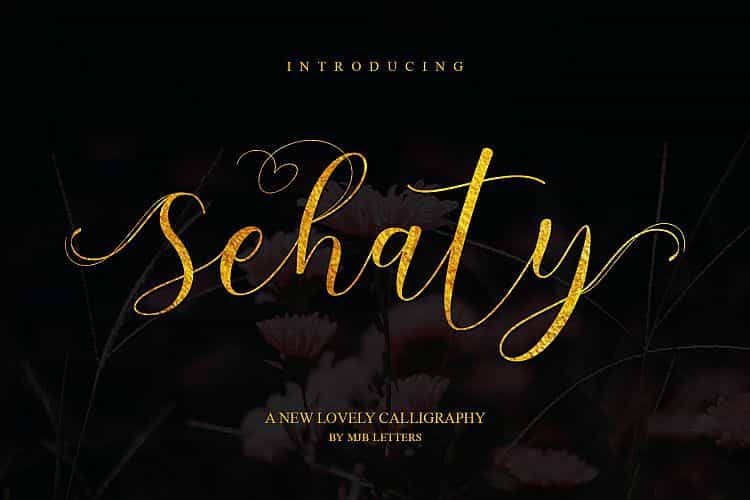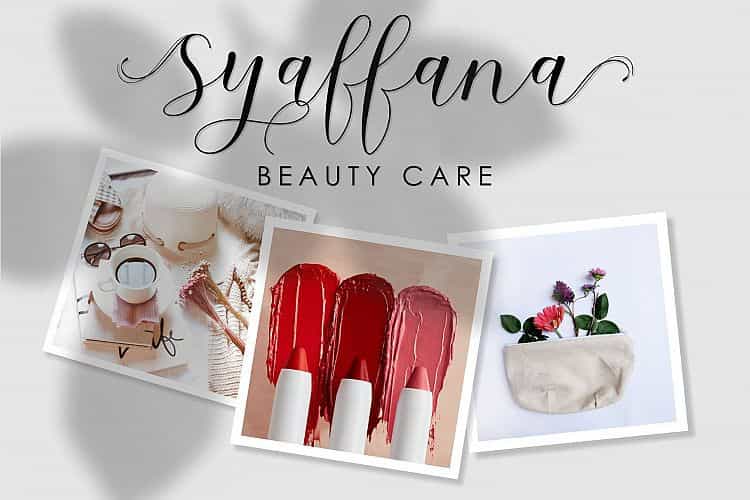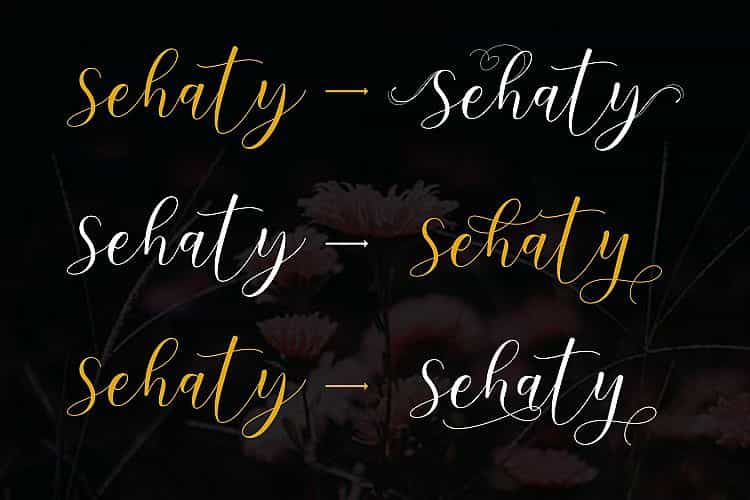
Introducing Sehaty Font. Created and posted by MJB Letters as a form of Modern Calligraphy and Lettering Design. It comes with lines which can be well used for different causes. Like title, signature, logo, letters, wedding invitations, letterheads, sign boards, labels, bill boards, bulletins, Posters, badges, Branding, Greeting Cards, etc. So beautiful on invitations like greeting cards, and more!!!